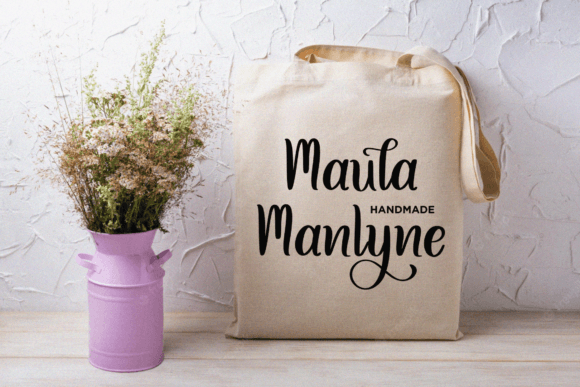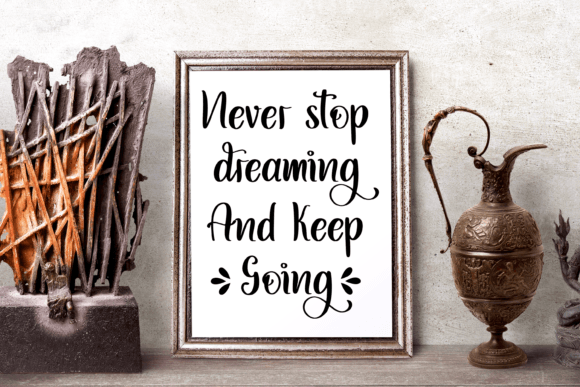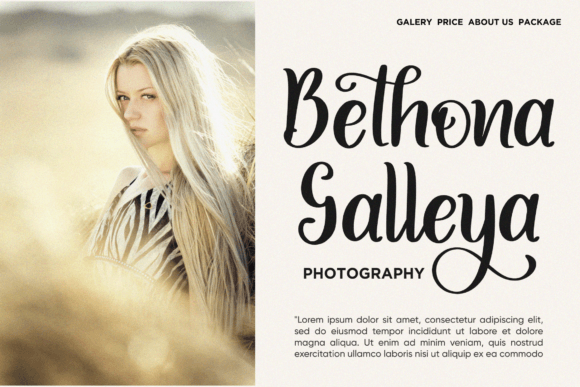
Introduction to Mysthiqa Font
Mysthiqa is a beautiful and modern handwritten font perfect for product packaging, branding projects, magazines, social media, weddings, or just used to express words above the background.
Why Choose Mysthiqa Font?
Mysthiqa Font offers exceptional quality and versatility, making it a valuable addition to your design toolkit. Whether you’re creating for personal projects or commercial use, Mysthiqa Font delivers professional results.